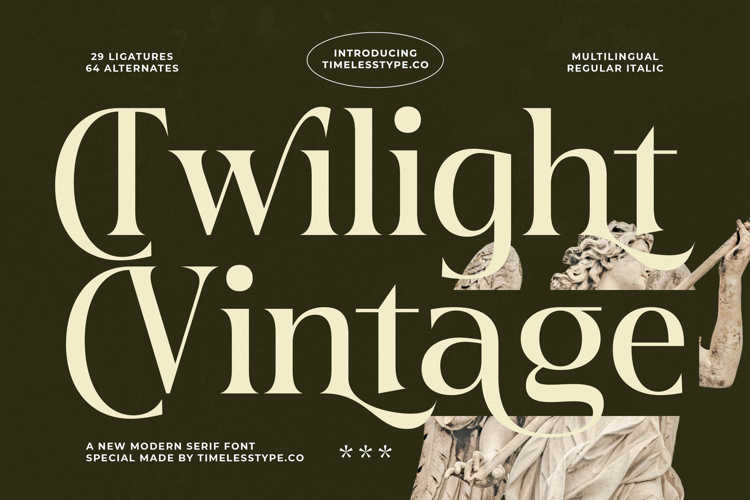
Twilight Vintage - New Modern Serif Font
The Twilight Vintage Typeface is a refined modern serif font that blends timeless elegance with a contemporary edge, making it a versatile choice for designers seeking both sophistication and character. At first glance, its defining traits are the sharp serif details, graceful curves, and unique stroke variations that balance modern minimalism with vintage charm. The typeface is distinguished by its 29 ligatures and 64 alternates, offering endless creative flexibility to shape words into visually captivating works of art. Each character is meticulously designed to appear bold and striking while still maintaining readability, giving it the perfect balance between practicality and style.
What sets Twilight Vintage apart is its ability to create an atmosphere of mystery, elegance, and artistry. The font feels rooted in the grandeur of classical sculptures, fashion editorials, and cinematic visuals, yet it also carries the clarity needed for modern branding. This makes it exceptionally suitable for film titles, book covers, editorial headlines, and luxury product branding. Its ornamental ligatures and alternate characters add drama and visual rhythm, allowing designers to experiment with unique compositions that immediately capture attention. Whether used in magazine spreads, posters, or high-end advertising, Twilight Vintage brings an instant sense of sophistication and class.